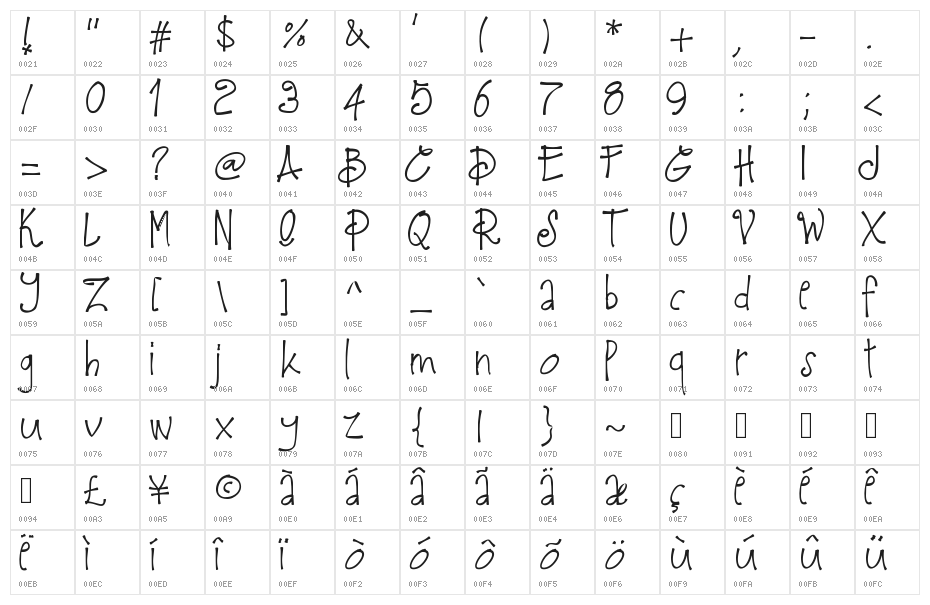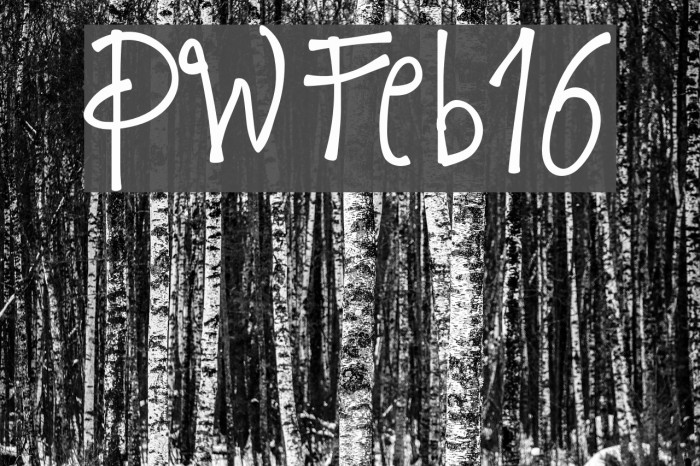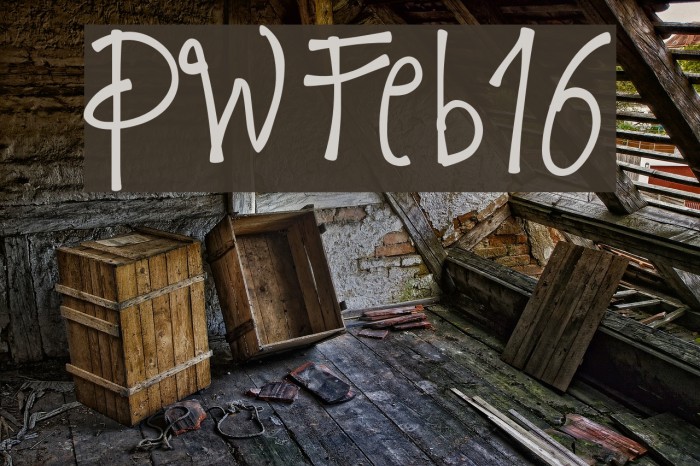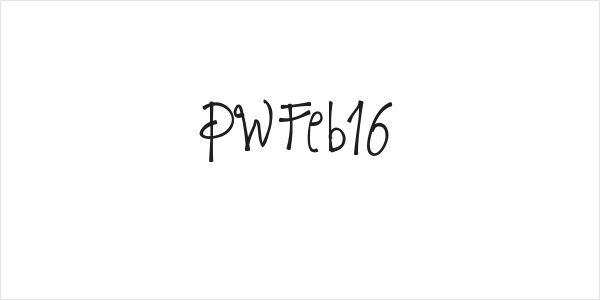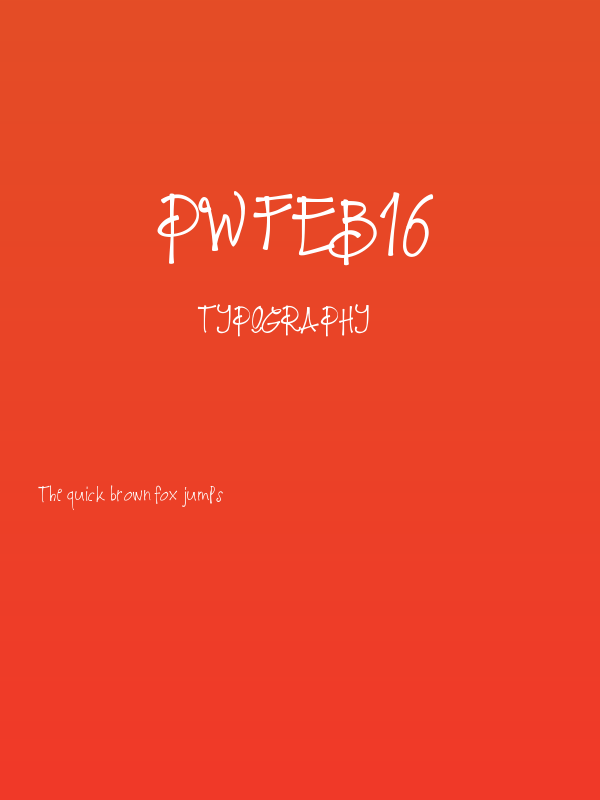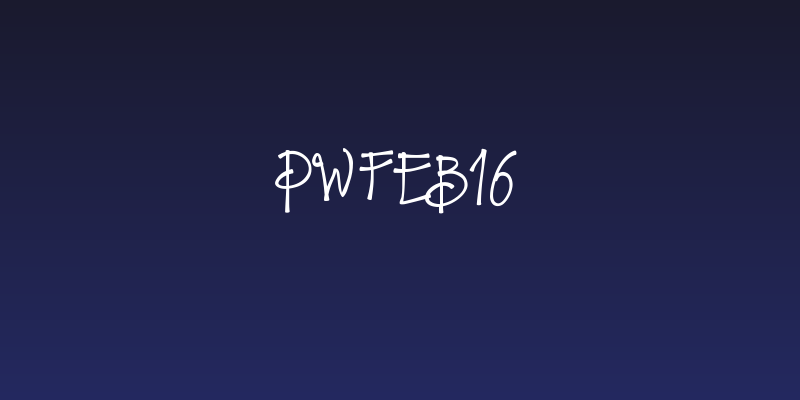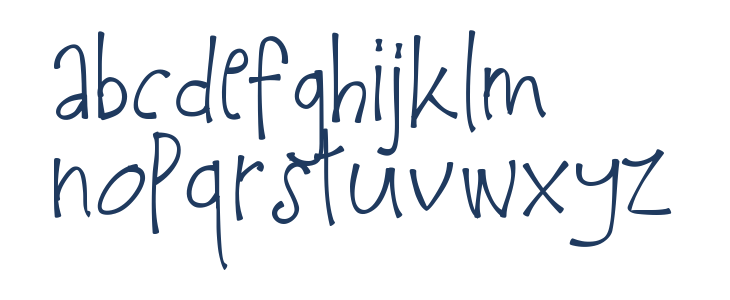
PWFeb16 Font
PWFeb16 Description
This font features a playful and whimsical handwritten style, characterized by its irregular and dynamic strokes. The letters have a casual, informal appearance, with varying heights and widths that give it a lively and energetic feel. The uppercase and lowercase letters maintain a consistent style, with rounded edges and a slightly tilted orientation, adding to its charm. The numerals and special characters follow the same playful aesthetic, making it suitable for creative and fun projects. Its unique style makes it stand out, perfect for designs that require a personal touch.
| Overall Style | Whimsical |
| Use Case | Headlines, Logos, Creative projects |
| Proposed Projects | Ideal for greeting cards, children's books, playful branding, and creative posters. |